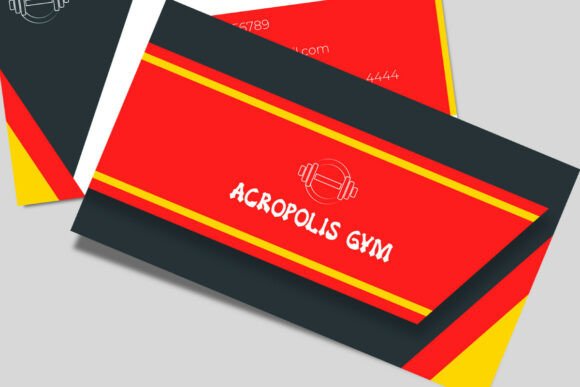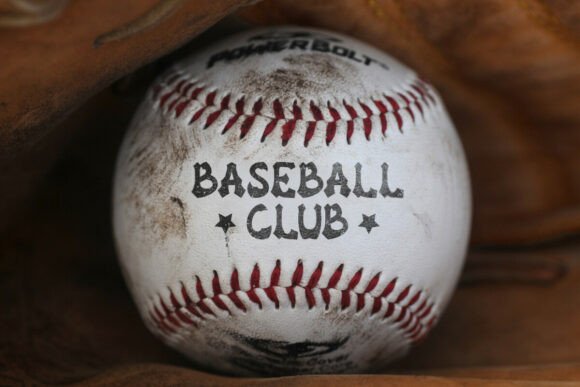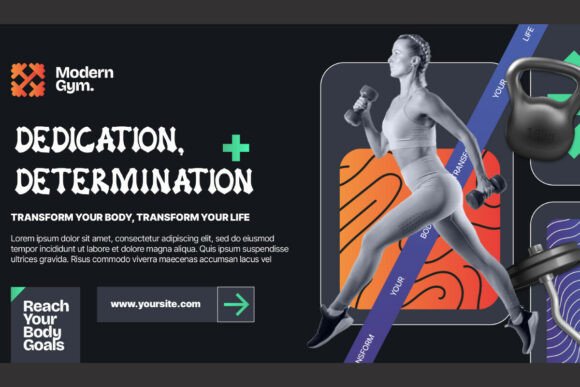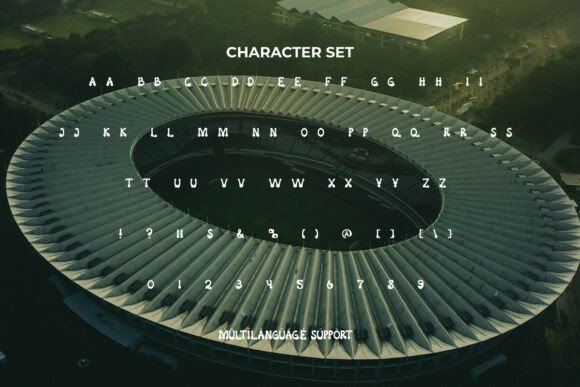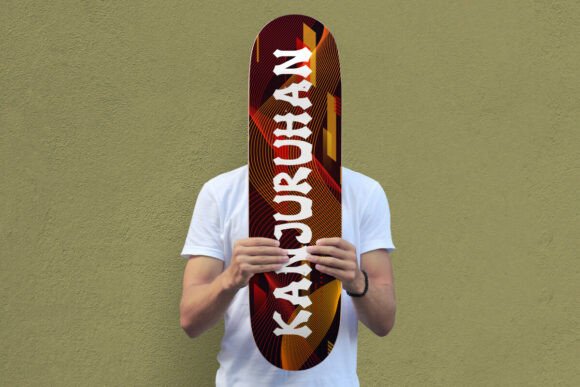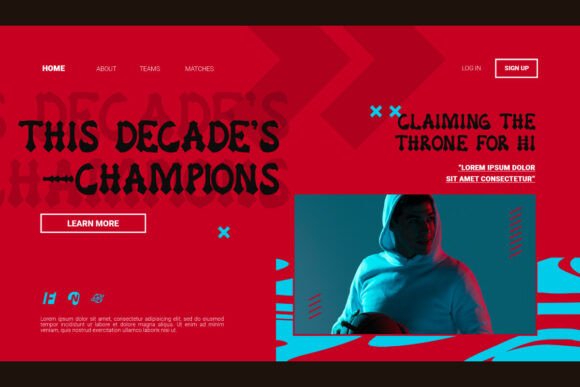
Introduction to Kanjuruhan Font
As a designer, you’ve probably been there – staring at a blank canvas, waiting for the perfect font to bring your creative project to life. The right typography can make all the difference, elevating your design from ordinary to extraordinary. That’s exactly what the Kanjuruhan Font is designed to do – add a touch of high-quality, retro flair to your next design project.
With its unique blend of artistic touches and a sports-inspired theme, the Kanjuruhan Font is a valuable resource for designers looking to add some personality to their work. Whether you’re creating a brochure, a website, or a sports-themed poster, this font is sure to make a statement. And the best part? It’s available for free download with a transparent background, making it easy to incorporate into your design.
Key Features of Kanjuruhan Font
- High-quality design: The Kanjuruhan Font is a well-crafted design resource ideal for creative projects that demand a professional touch.
- Transparent background: The Kanjuruhan Font features a transparent background, allowing for seamless integration with any design element.
- High-resolution design: The Kanjuruhan Font is designed at a high resolution, ensuring crisp and clear typography in various design applications.
- Unique characteristics: The font’s distinctive design elements and letterforms make it an excellent choice for designers seeking a creative and eye-catching visual identity.
Honest Review: Kanjuruhan Font
As a designer, I’m always on the lookout for high-quality design resources to enhance my creative projects. Recently, I stumbled upon the Kanjuruhan Font, and I must say, it’s been a game-changer.
What works well with this font is its versatility. It’s perfect for a wide range of designs, from logos to typography-based artwork. The font’s unique design and modern aesthetic make it a great addition to any design project. I’ve used it for a few recent projects, and the results have been stunning ✨.
Here are some of the key features that make the Kanjuruhan Font stand out:
- Wide range of uses, from logos to typography-based artwork
While the Kanjuruhan Font is an excellent addition to any designer’s toolkit, there are a few limitations to be aware of ⚠️:
- May not be suitable for very small text sizes
- Not as widely supported as some other fonts
Overall, I’m thoroughly impressed with the Kanjuruhan Font. Its unique design, versatility, and high-quality make it a must-have for any designer. If you’re looking for a reliable design resource, I highly recommend giving it a try.
Common Use Cases for Kanjuruhan Font
The Kanjuruhan Font is suitable for a variety of creative projects, including branding, graphic design, and digital art. Its high-quality design and transparent background make it an excellent choice for designers looking for a versatile font.